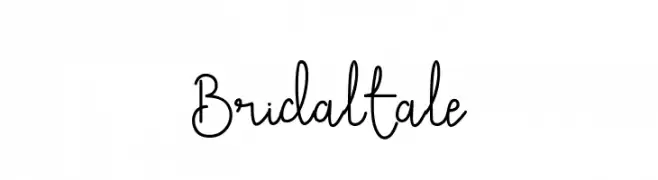
An elegant script font with flowing, interconnected letters and intricate flourishes.
A whimsical, elegant cursive font with playful loops and smooth flow.
A modern, handwritten font with a casual and flowing style.
A sophisticated, elegant handwritten script with fluid, continuous strokes.
An elegant script font with intricate swashes and a sophisticated style.